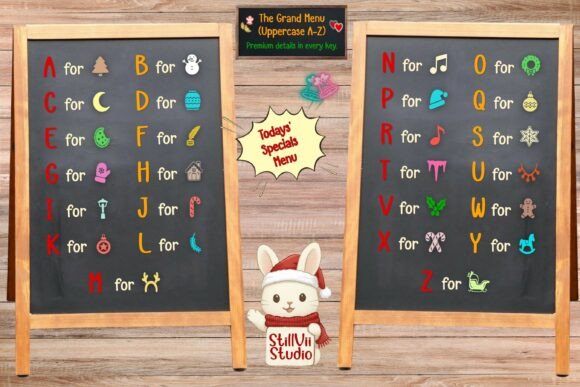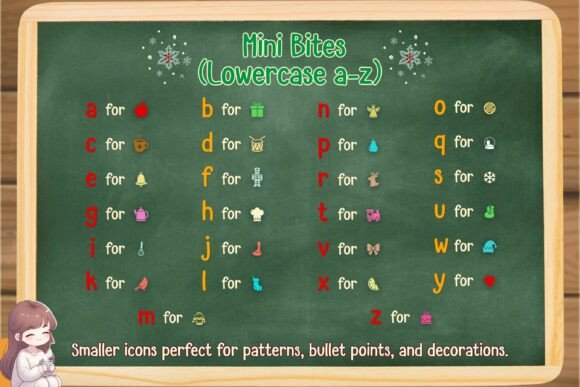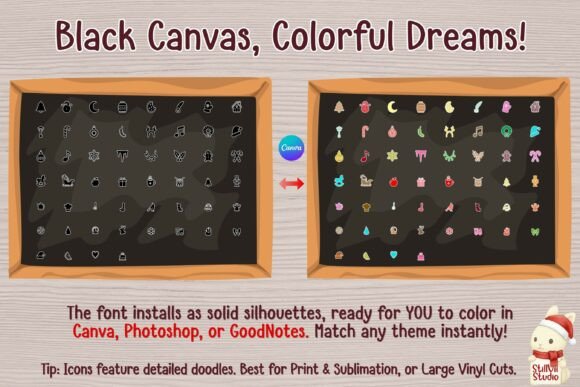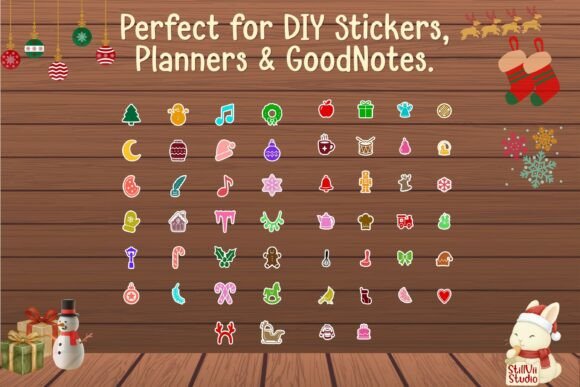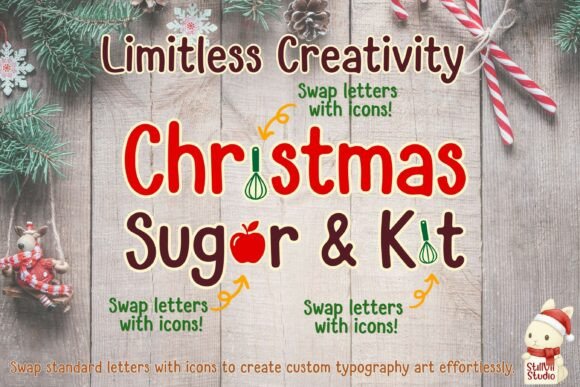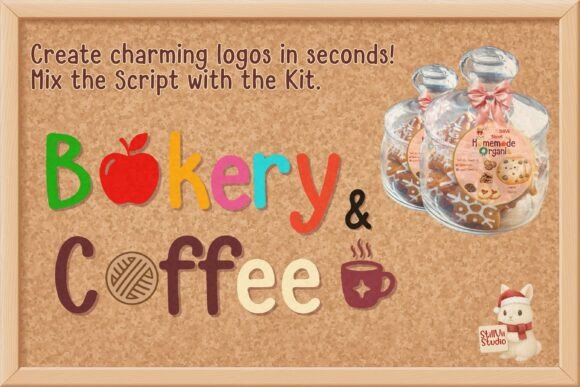
Sprinkle Some Holiday Magic! 🍬✨ Introducing the Christmas Sugar and Kit Duo Font
Are you ready to add a spoonful of sweetness to your designs this holiday season? Look no further than the Christmas Sugar and Kit Duo Font! This delightful font duo is the perfect companion for designers and crafters who want to bring some festive fun to their projects. In this article, we’ll dive into the details of this exciting font duo and explore how you can use it to create magical holiday designs.
Meet the Christmas Sugar Font
The Christmas Sugar font is a playful, handwritten typeface that’s bursting with holiday cheer. Its soft, bubbly letterforms evoke the joy of holiday baking and treats, making it the perfect fit for seasonal designs. With its friendly and high-energy personality, this font works beautifully in bright holiday colors, adding a pop of fun to any project.
The Perfect Pair: Christmas Sugar and Christmas Cream Fonts
But what really sets the Christmas Sugar and Kit Duo Font apart is its pairing with the Christmas Cream font. While Christmas Sugar brings the fun and playfulness, Christmas Cream brings the warm, cozy bakery vibes. Together, these two fonts create a match made in heaven, perfect for designers who want to create a cohesive and magical visual story.
The Premium Icon Kit: A Treasure Trove of Holiday Delights
But that’s not all! The Christmas Sugar and Kit Duo Font also comes with a Premium Icon Kit, featuring 52+ Classic Holiday & Baking Icons. You’ll get access to a treasure trove of charming doodles, including Santa, Reindeer, Sleighs, and essential baking tools like Whisks and Chef Hats! These icons are the perfect addition to your holiday designs, allowing you to create a cohesive and visually appealing story.
So, what can you create with the Christmas Sugar and Kit Duo Font? The possibilities are endless! Here are a few ideas to get you started:
- DIY holiday crafts: Add a personal touch to your holiday gifts and decorations with custom labels, tags, and cards.
- Seasonal product labels: Create eye-catching labels for your holiday products, from baked goods to gifts and treats.
- Festive social media promos: Stand out on social media with festive graphics and promotions that showcase your brand’s holiday spirit.
- Christmas cards and gift tags: Create beautiful, one-of-a-kind cards and gift tags that will make your loved ones feel special.
Why Choose the Christmas Sugar and Kit Duo Font?
So, why should you choose the Christmas Sugar and Kit Duo Font for your holiday designs? Here are just a few reasons:
- Unique and playful design: The Christmas Sugar font and icon kit are unlike anything else on the market, giving you a unique edge for your holiday designs.
- Easy to use: The font and icon kit are easy to use, even for designers who are new to working with fonts and graphics.
- Versatile: The Christmas Sugar and Kit Duo Font can be used for a wide range of design projects, from digital graphics to print materials.
Get Ready to Sprinkle Some Holiday Magic!
It’s time to add a spoonful of sweetness to your designs with the Christmas Sugar and Kit Duo Font! With its playful font, charming icons, and endless design possibilities, this font duo is the perfect companion for designers and crafters who want to bring some festive fun to their projects. So why wait? Get your hands on the Christmas Sugar and Kit Duo Font today and start sprinkling some holiday magic into your designs! 🍬✨